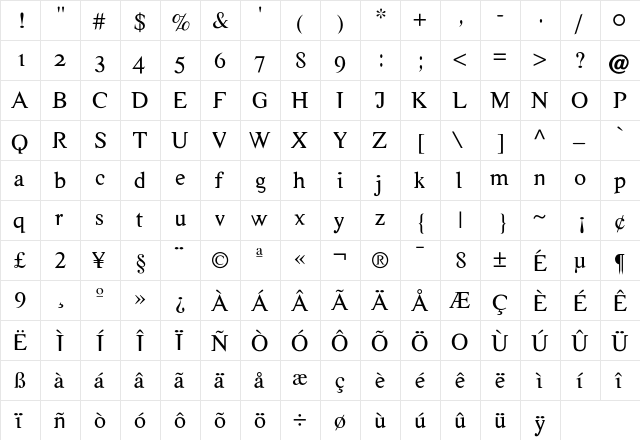
Hard TimesRegular Font Preview
Hard TimesRegular
Design Context for Hard Typeface
Hard takes a measured approach to typography — its balanced proportions and neutral character make it a reliable workhorse for both digital and print work.